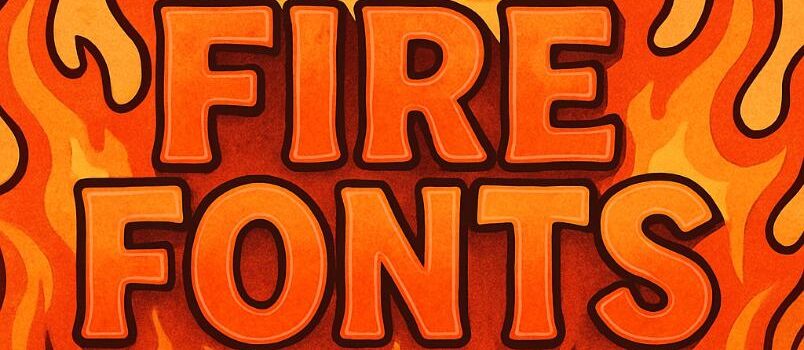
Creating an engaging Free Fire-themed design requires the perfect typography to capture the game’s energetic and combat-focused aesthetic. Whether you’re designing social media graphics, YouTube thumbnails, or fan art, the right fire font can make your work stand out in the competitive world of gaming design.
Why Typography Matters in Free Fire Designs
Typography sets the tone for your entire design. For Free Fire content, you need fonts that convey action, excitement, and a touch of edginess. The right font choice can immediately signal to viewers that your content relates to this popular battle royale game without explicitly stating it.
The most effective Free Fire designs typically combine a bold, attention-grabbing headline font with a more readable secondary font for additional information. Try pairing your dramatic Free Fire-themed font with a clean sans-serif for player stats, dates, or explanatory text.
Color Considerations
Remember that font color is just as important as the font itself. Free Fire’s brand colors include vibrant reds, oranges, and yellows—colors that evoke fire, energy, and action. Consider using these colors with your chosen fonts, often with dark backgrounds for maximum contrast and visibility.
The perfect Free Fire font can elevate your design from amateur to professional level. By understanding the game’s aesthetic and choosing typography that reinforces its dynamic, action-packed nature, your designs will resonate more effectively with the Free Fire community.
Remember that while fonts are important, they should enhance your design without overpowering it. The best Free Fire designs balance eye-catching typography with compelling imagery and a clean overall layout.
Top Free Fire-Inspired Fonts
Flame
Crackling Fire
Hot Head
Royal Inferno
Fire Dancer
Flaming Tears
Fire Dusk
Fireworks
Blazed
Che Lives
Guevera
Phoenix One
Seaweed Fire
Yaki Goma
Baileys Car
Cheap Fire